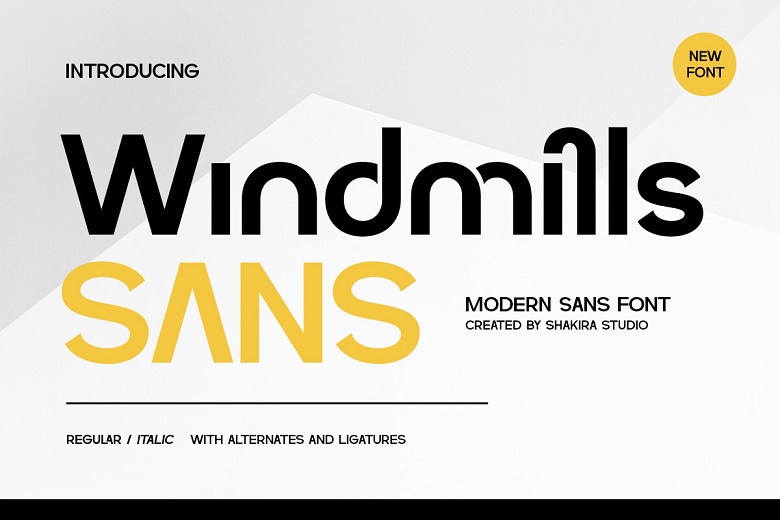
Windmills Font
Windmills is a Modern Sans Serif font that is designed for elegance and simplicity in one package. Although, it comes in regular and italic version, this font is highly versatile and can be used for branding, editorial and other kind of designs. Having received stylish alternates and ligatures, Windmills is a contemporary addition to any of your design activities.
Windmills Sans Serif Font